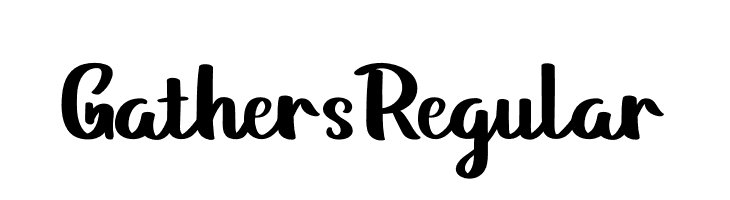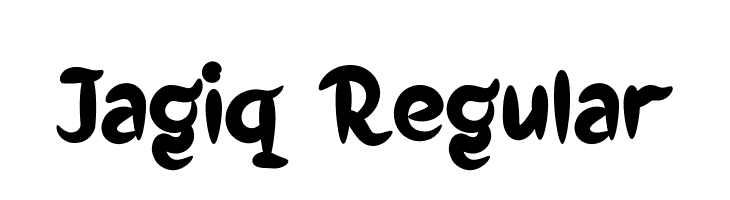
A bold, playful script font with a handwritten feel.
A bold, playful script font with a brush-like texture.
A bold, playful handwritten font with rounded, irregular characters.
A playful, bold, and handwritten-style font with rounded, irregular characters.
A bold, handwritten-style font with dynamic and playful characteristics.
A bold, hand-drawn font with dynamic, brush-like strokes.
A fluid, elegant script font with a sophisticated handwritten style.
A bold, handwritten-style font with smooth curves and a playful elegance.
A playful, handwritten script font with bold, rounded characters.
A playful and bold script font with rounded, flowing letterforms.